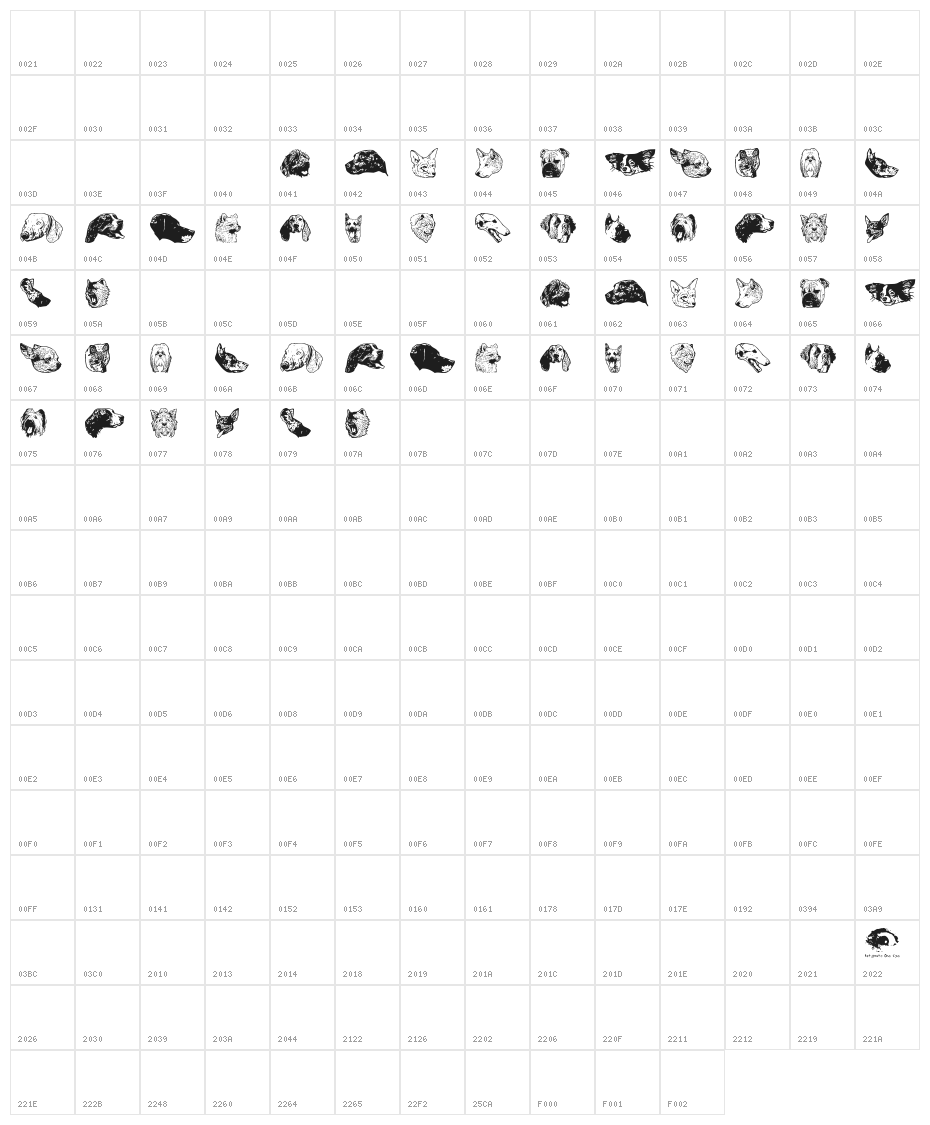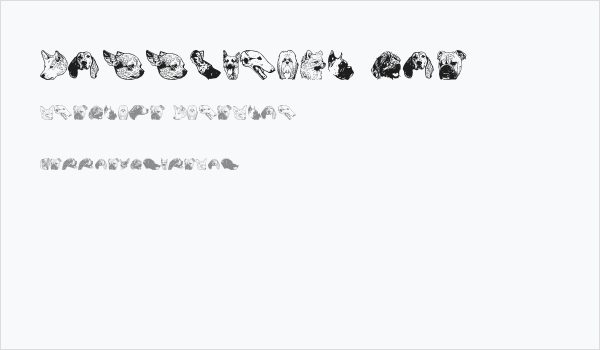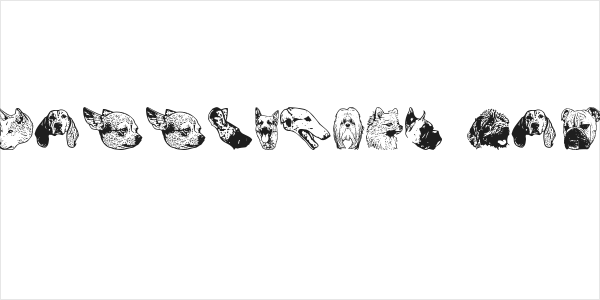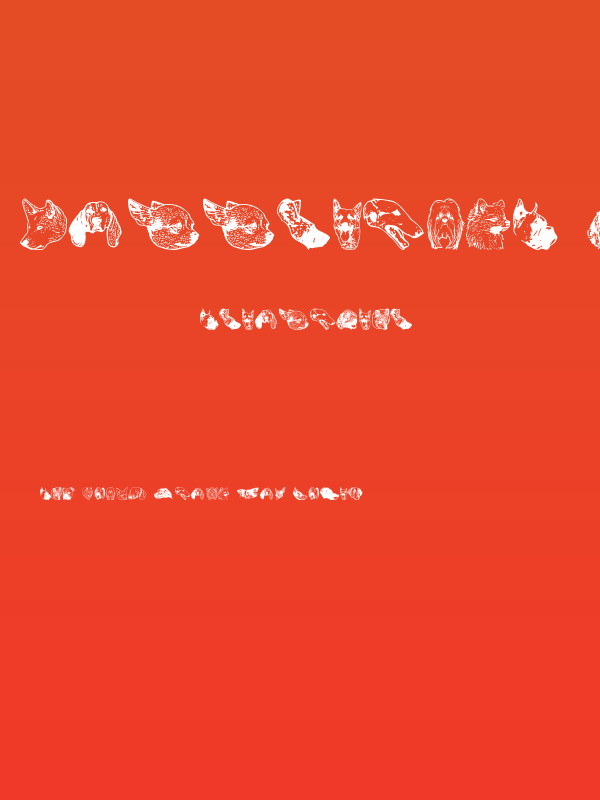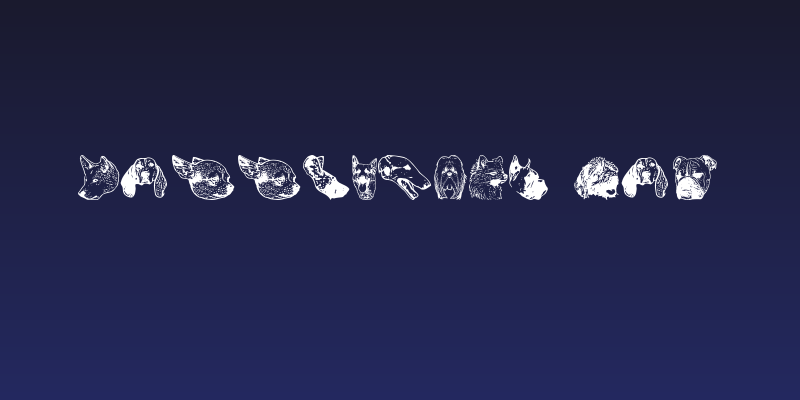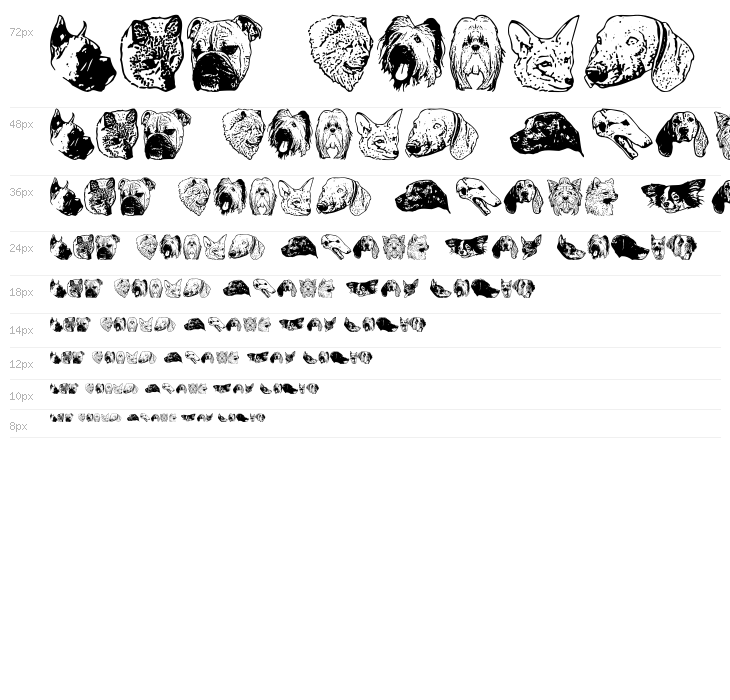
DoggyPrint AOE Font
DoggyPrint AOE Description
A decorative dingbat font featuring detailed, hand-drawn illustrations of various dog breeds' heads in black and white, each glyph representing a different dog face with expressive linework.
| Overall Style | Decorative, Hand-drawn, Playful |
| Use Case | Logos, Decorative elements, Themed graphics |
| Proposed Projects | Pet branding, animal shelter flyers, children's books, greeting cards, decorative posters. |